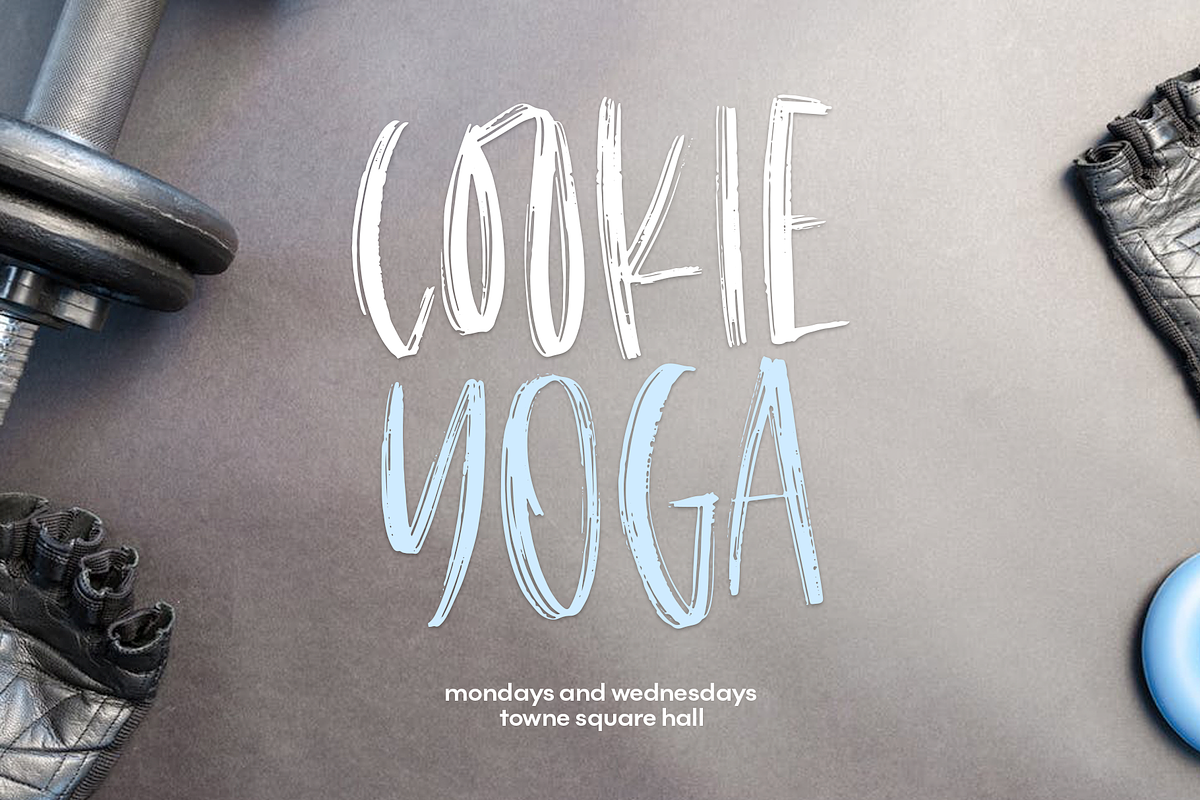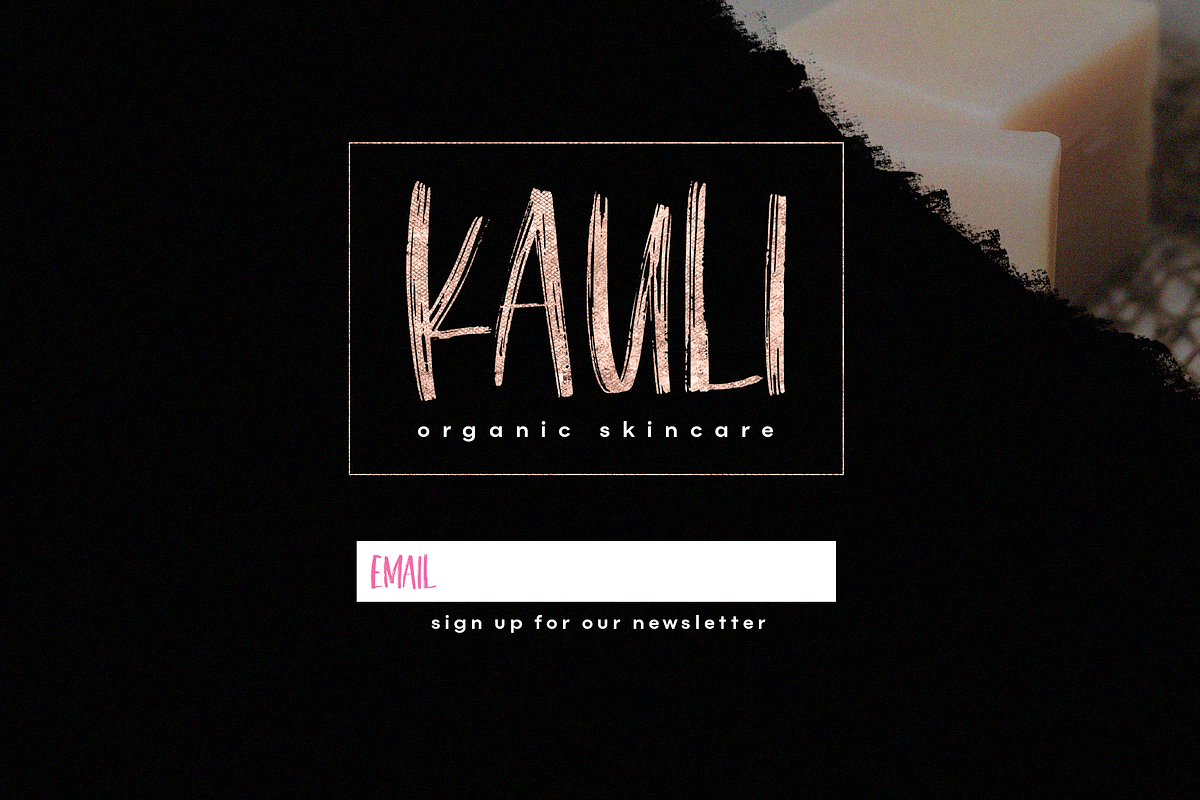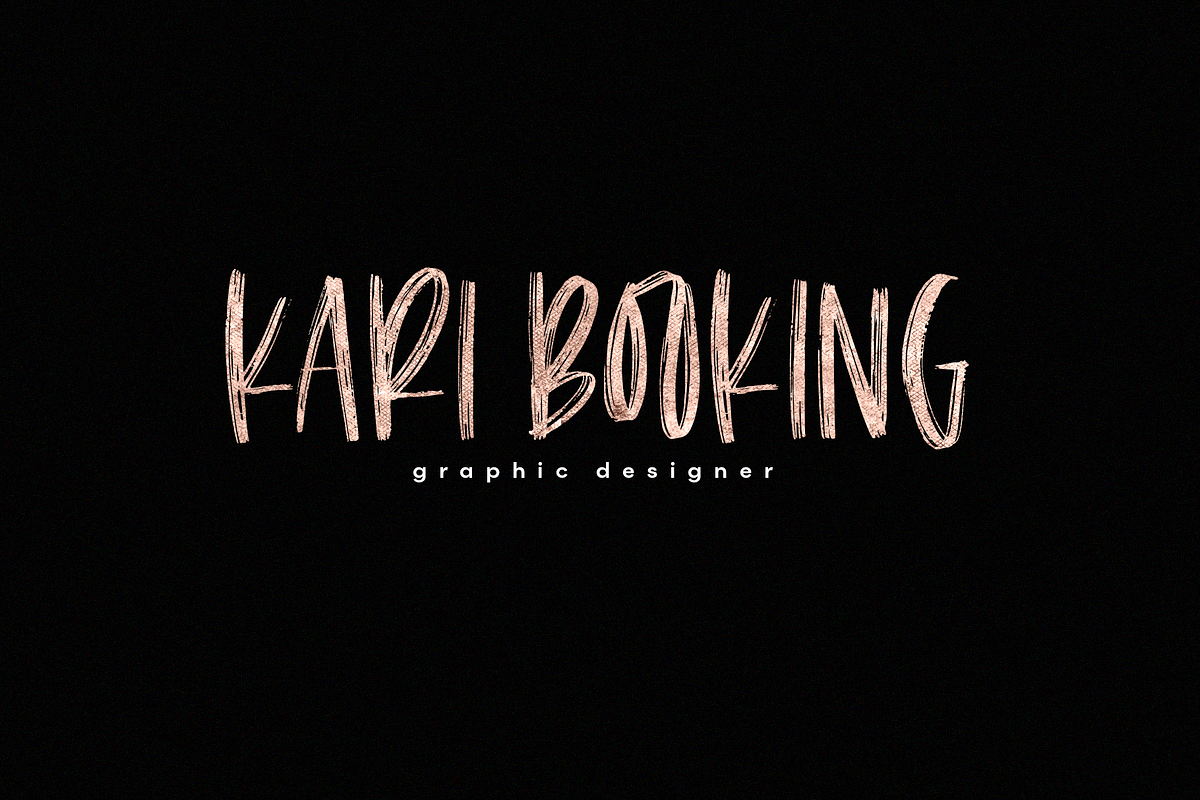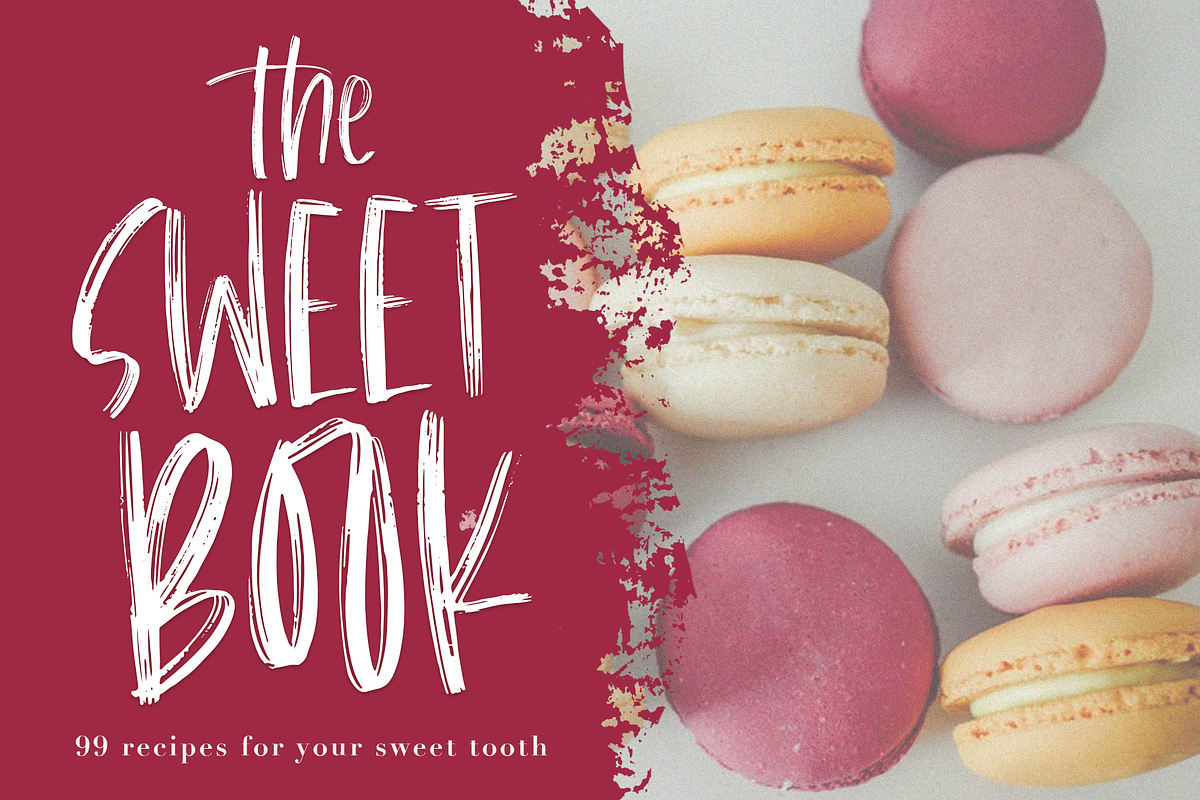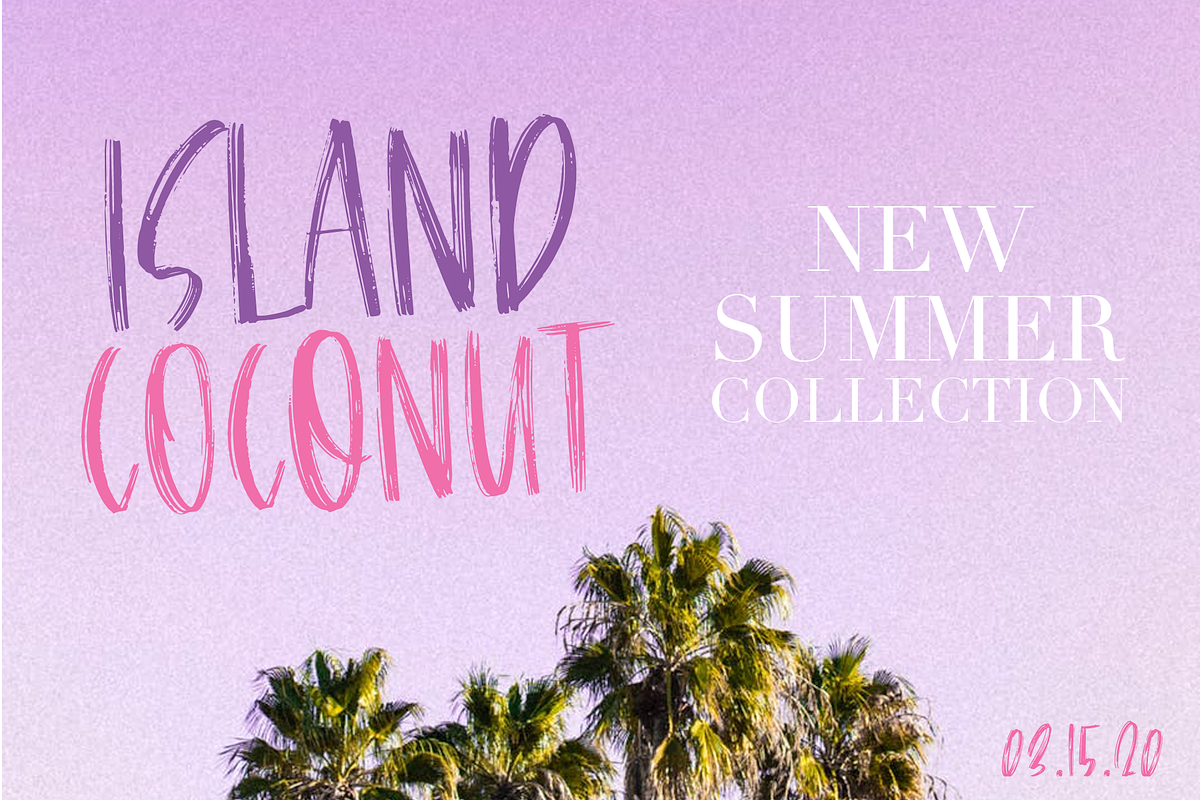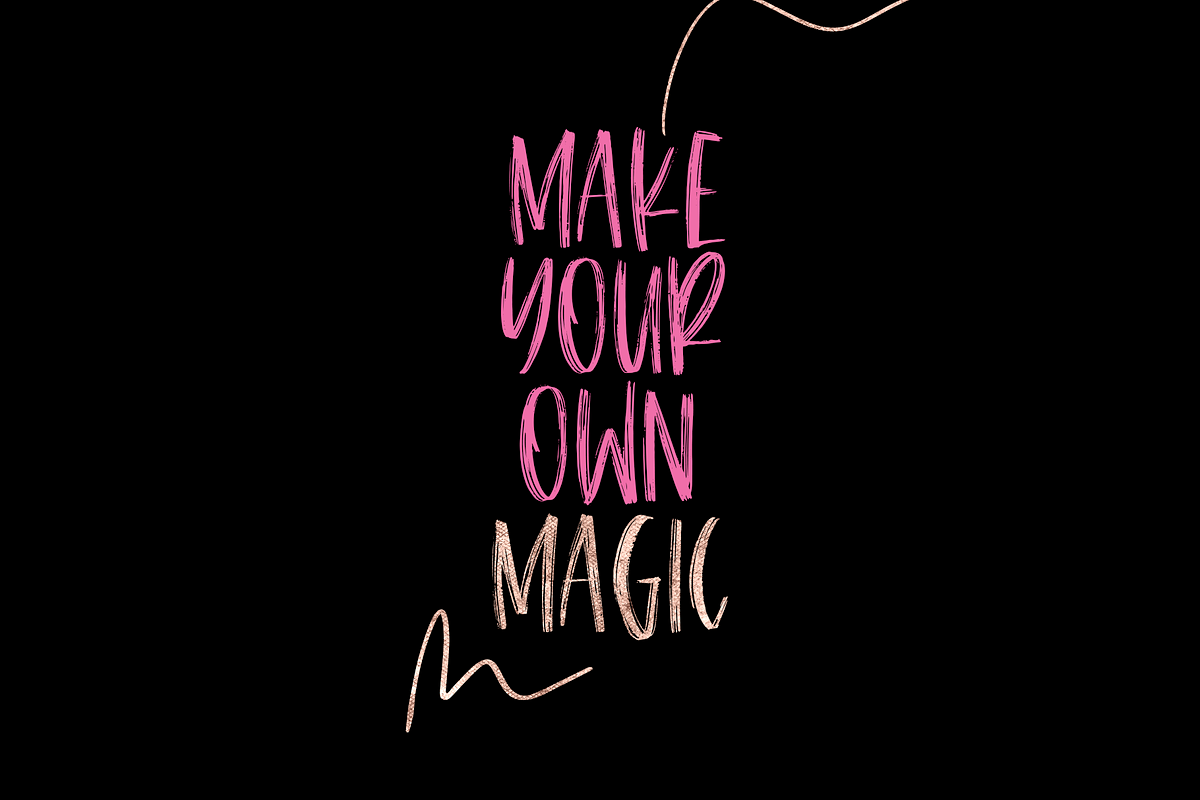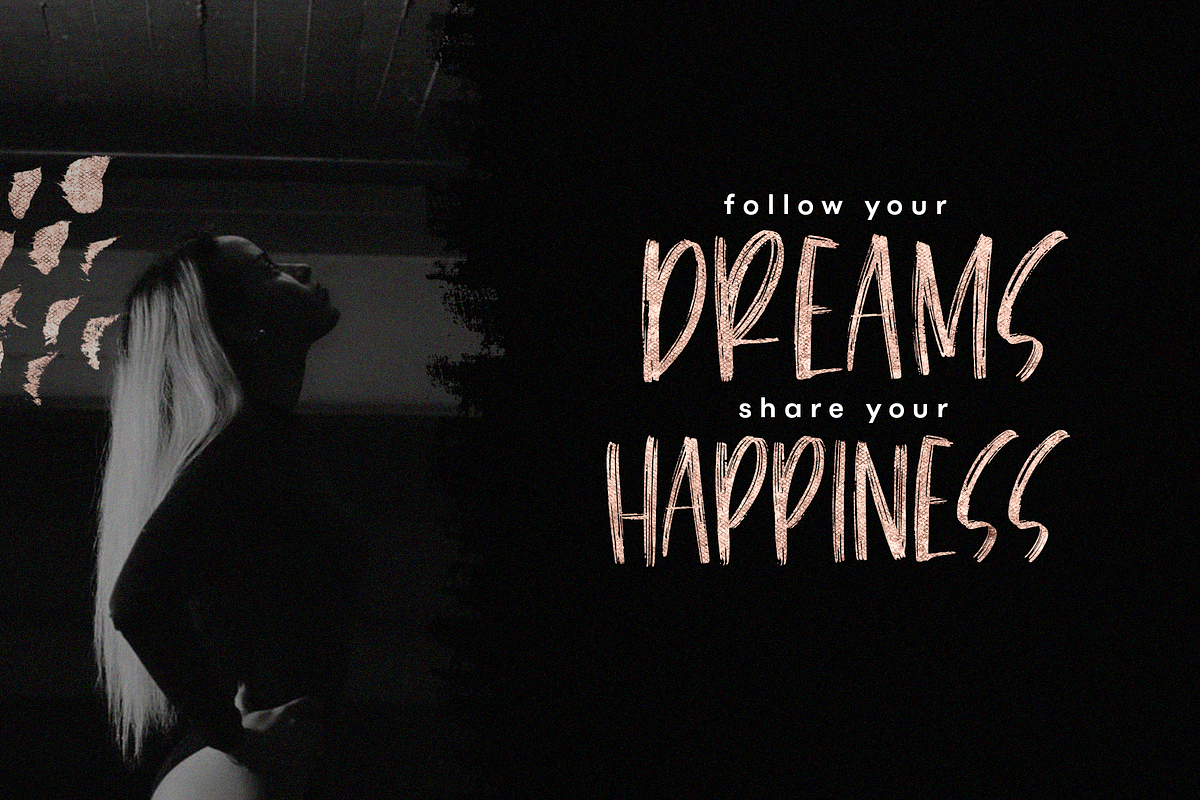
Breakroom - Handwritten Brush Font
Breakroomis a bold, brush font. It is handwritten in all caps.
This font is perfect for brand announcements, quotes, headings, blogs, logos, invitations and more!